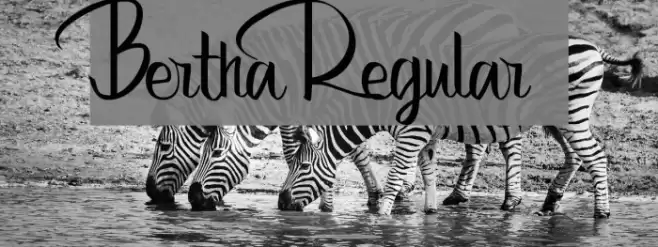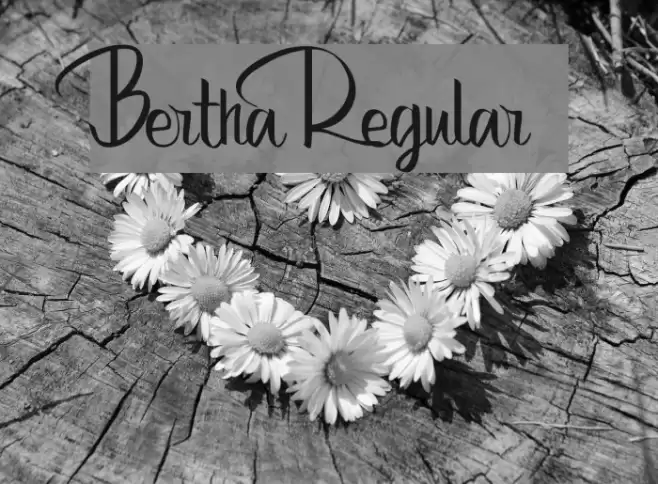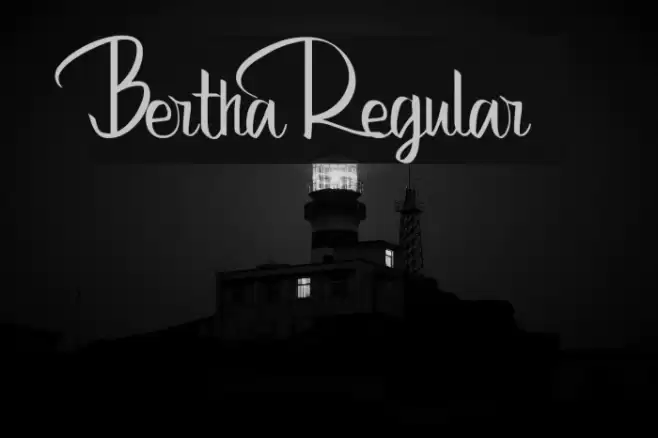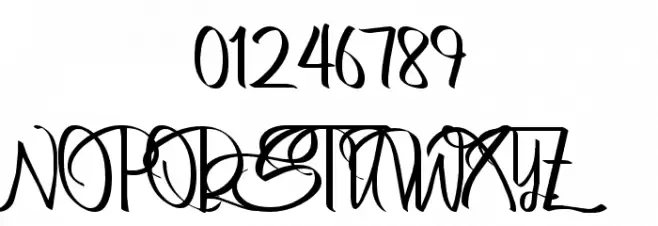
Bertha Regular Font
Bertha Regular Description
This font features an elegant and flowing script style, characterized by its intricate and decorative letterforms. The uppercase letters are particularly ornate, with sweeping curves and loops that give a sense of movement and sophistication. The lowercase letters maintain a more restrained yet still stylish appearance, complementing the uppercase with a consistent flow. The numerals are clear and legible, while the special characters blend seamlessly with the overall aesthetic. This font's design is perfect for adding a touch of elegance and flair to any project.
An elegant and decorative script font with flowing, intricate letterforms from Uncategorized fonts.
- Proposed Projects: Ideal for wedding invitations, luxury branding, elegant stationery, and decorative headings.
- Use Case: Headlines, Logos, Invitations